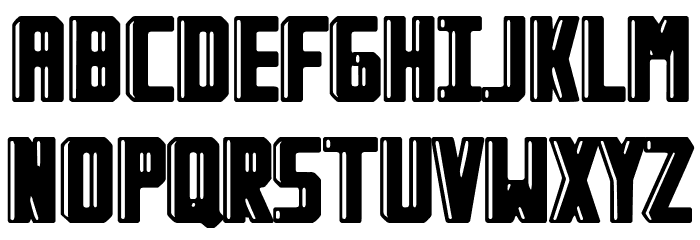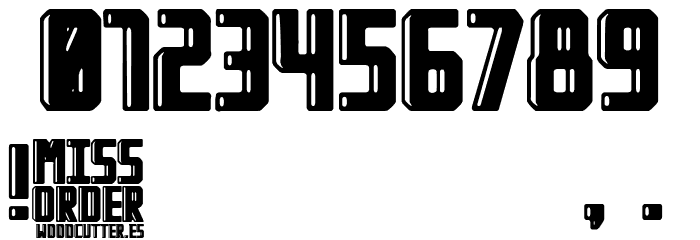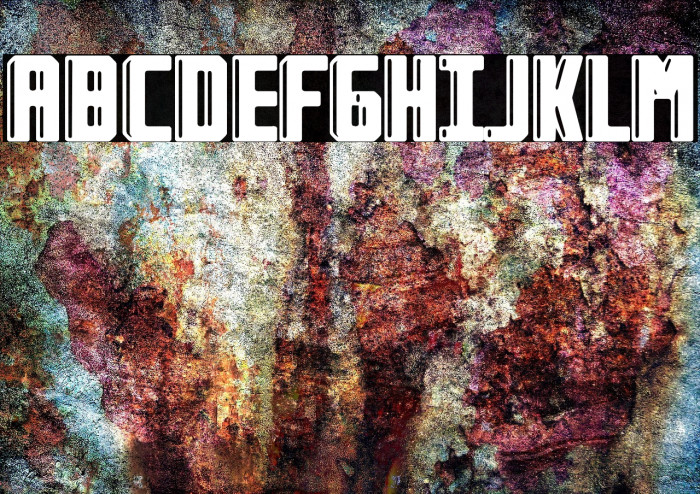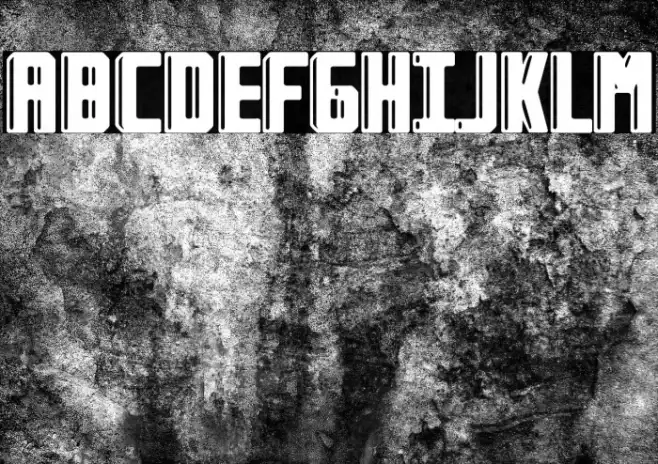
Miss Order Font
This font features a bold, industrial design with a unique stencil-like appearance. Each character is constructed with solid, blocky shapes and distinct cut-out sections, giving it a mechanical and rugged feel. The uppercase and lowercase letters maintain a consistent style, with angular edges and uniform thickness. The numerals and special characters follow the same design principles, ensuring a cohesive look across all text. This font's strong geometric forms and high contrast make it stand out, suitable for attention-grabbing designs.
A bold, industrial stencil-style font with high contrast and geometric forms.
- Proposed Projects: Ideal for branding, posters, signage, and any project requiring a strong, industrial aesthetic.
- Overall Style: Industrial, Modern